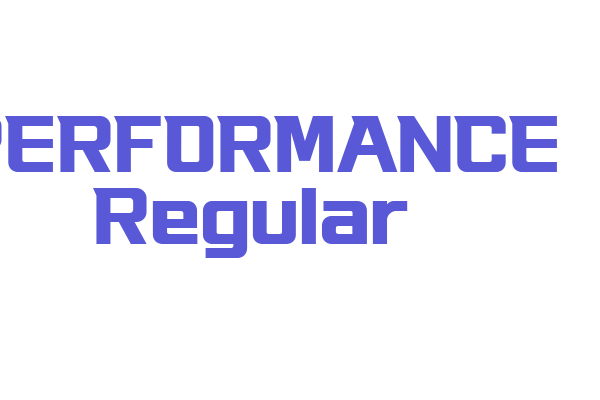
PERFORMANCE Regular is a sleek and futuristic font designed by Sompong Pradabbut. Belonging to the PERFORMANCE font family, this techno and sci-fi inspired typeface is perfect for projects that require a modern and edgy look. Its clean lines and sharp angles make it ideal for branding, logos, and any design that aims to convey a sense of innovation and technology.
Font Name: PERFORMANCE Regular
Designer: Sompong Pradabbut
Font Family: PERFORMANCE